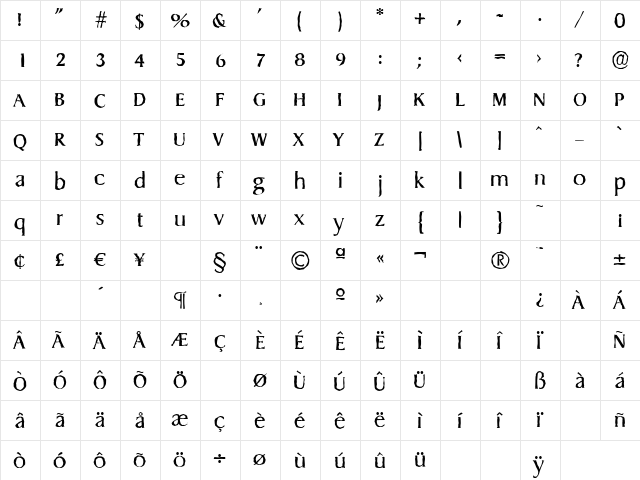
DragonAntique Regular
Design Context for DragonAntique Typeface
DragonAntique has the warm character of retro typography — evoking diners, record sleeves, and the golden age of print advertising.
Perfect for vintage-inspired branding, retro packaging, nostalgia campaigns, and period-accurate editorial design.
Font Pairing: Combine DragonAntique with a simple slab or neutral sans — period-accurate companions reinforce the vintage feel without competing for attention.
Pro Tip: Use DragonAntique for headlines and pull quotes rather than body copy — its personality is best appreciated in short, focused bursts.